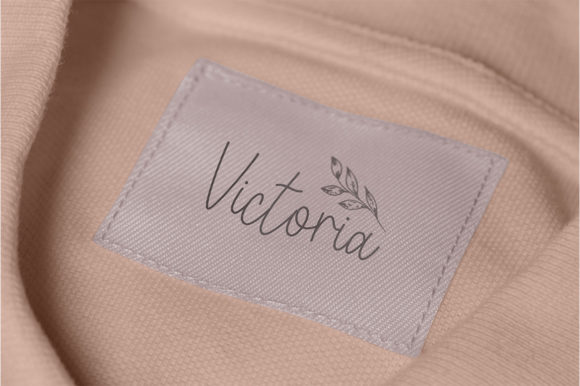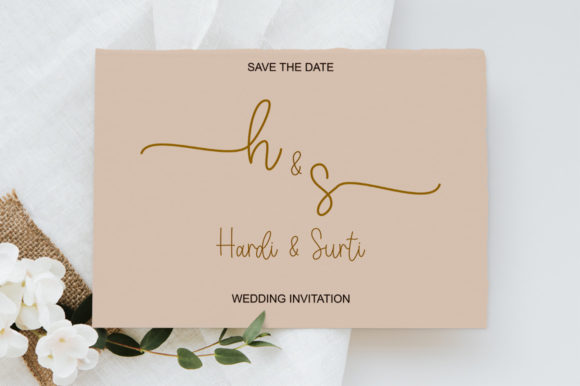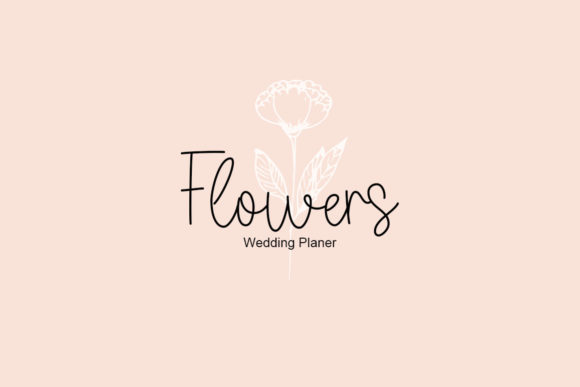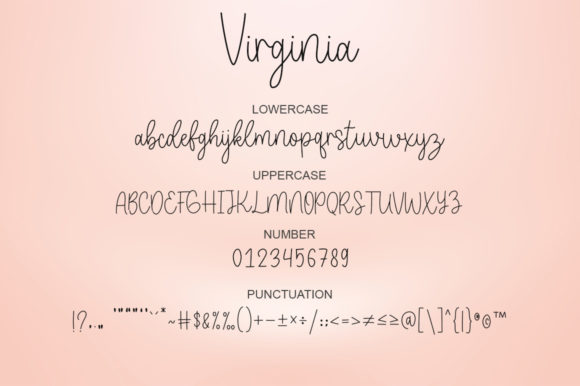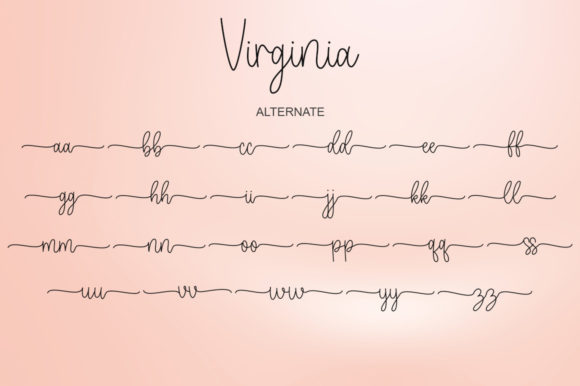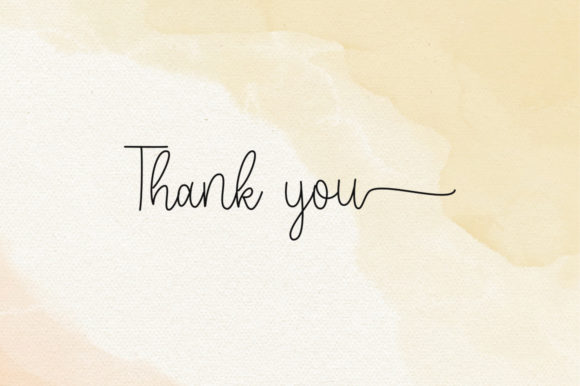
Virginia Font
About Virginia Font
Virginia is a delicate script font with a relaxed theme, featuring a lovely style. This font is PUA encoded which means you can access all of the glyphs and swashes with ease!